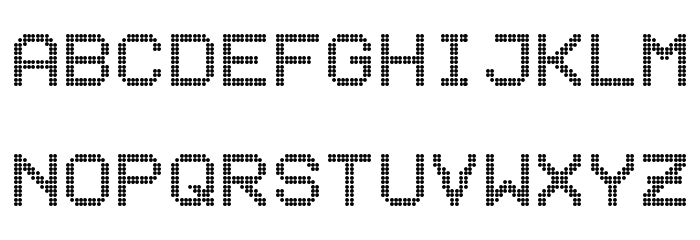
10mal12Lampen Font
This font features a unique dot-matrix style, reminiscent of digital displays and retro technology. Each character is composed of a grid of dots, creating a pixelated appearance that is both modern and nostalgic. The uniformity of the dots gives the font a structured and mechanical feel, while the rounded edges of the dots add a touch of softness. This design is particularly effective for conveying a sense of digital or electronic themes, making it ideal for projects that aim to evoke a sense of the past or futuristic technology. The font maintains consistent spacing and alignment, ensuring readability despite its unconventional style.
A dot-matrix style font with a retro digital appearance.
- Proposed Projects: Ideal for digital-themed designs, retro gaming projects, electronic displays, and technology-related branding.
- Overall Style: Retro, Digital
- Use Case: Headlines, Logos, Digital Displays